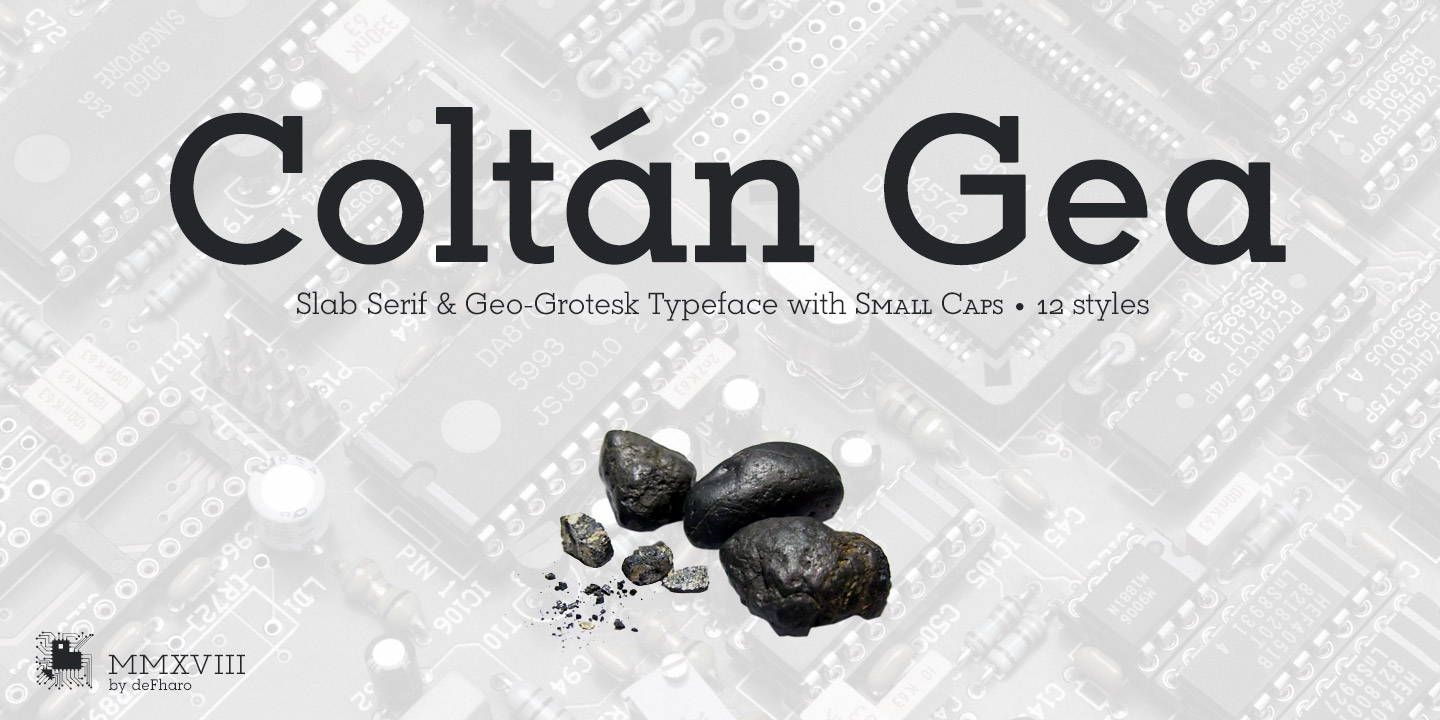
Coltan Gea Font
This Coltan Gea Font is perfect for earth-conscious branding, geological survey materials, mining industry communications, mineral extraction companies, sustainable technology firms, rare earth element research, environmental geology projects, earth science publications, natural resource management, and geological exploration applications.
What makes this Coltan Gea Font exciting is its geological strength that captures the raw power and essential nature of earth's precious mineral resources and geological excellence. The font features robust letterforms with mineral characteristics that convey geological stability, earth-based strength, and natural resource authenticity. Its mineral character and earth-inspired design make it ideal for brands seeking to communicate geological expertise, natural resource excellence, and earth science authority in mining and environmental markets.
The Coltan Gea Font family includes light, regular, medium, and bold weights with geological alternates, mineral variants, and earth-based flourishes. This comprehensive geological font family provides designers with solid typographic tools to create earth-conscious compositions while maintaining the mineral character essential for geological brands and natural resource communications.
The solid construction of Coltan Gea Font showcases powerfully designed letterforms with geological proportions that ensure exceptional stability across all earth science applications. Its mineral appearance and geological character create memorable impressions while maintaining the readability necessary for effective geological communication and natural resource materials.
Professional designers appreciate how Coltan Gea Font brings immediate geological authenticity and earth science authority to brand communications. The font's mineral nature allows organizations to communicate geological excellence and natural resource expertise while maintaining the professional quality necessary for effective positioning in mining and environmental geology markets.
The substantial appeal of Coltan Gea Font makes it particularly effective for brands emphasizing geological knowledge, mineral resources, and earth science expertise. Its solid character resonates strongly with audiences who appreciate natural resources, geological exploration, and brands that represent the essential strength and earth-based excellence of geological sciences.